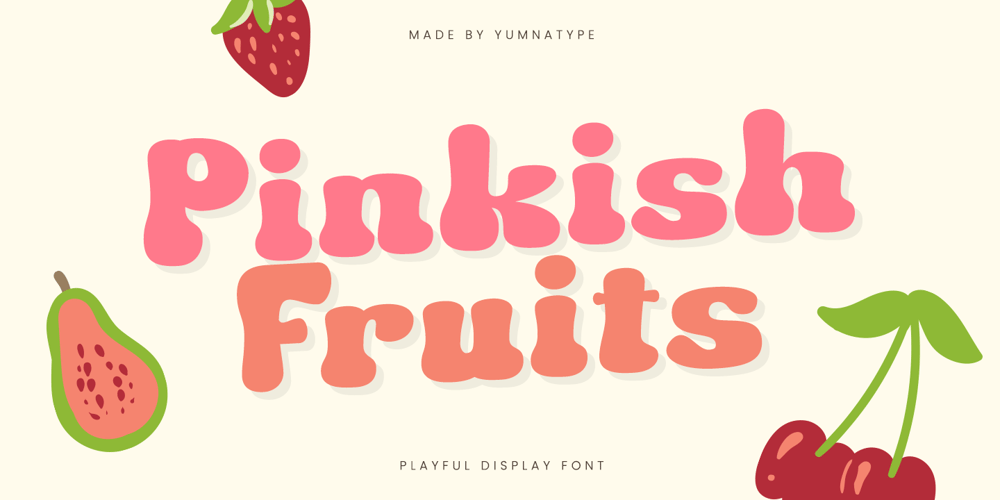
Pinkish Fruits Font Family was designed by Donis Miftahudin and published by Yumna Type. Pinkish Fruits contains 1 styles and family package options. Pinkish Fruits is a delightful display font that radiates a playful style with its very thick weight and low contrast. The font is characterized by rounded shapes, giving it a soft and approachable appearance. Its bold and rounded characters ensure your message is both impactful and friendly, making it an excellent choice for projects that aim to captivate and engage with a touch of whimsy. In addition, enjoy the features here.Features: Multilingual Supports PUA Encoded Numerals and Punctuations Pinkish Fruits fits in headlines, logos, posters, flyers, branding materials, print media, editorial layouts, and many more designs. Find out more ways to use this font by taking a look at the font preview.Thanks for purchasing our fonts. Hopefully, you have a great time using our font. Feel free to contact us anytime for further information or when you have trouble with the font. Thanks a lot and happy designing.